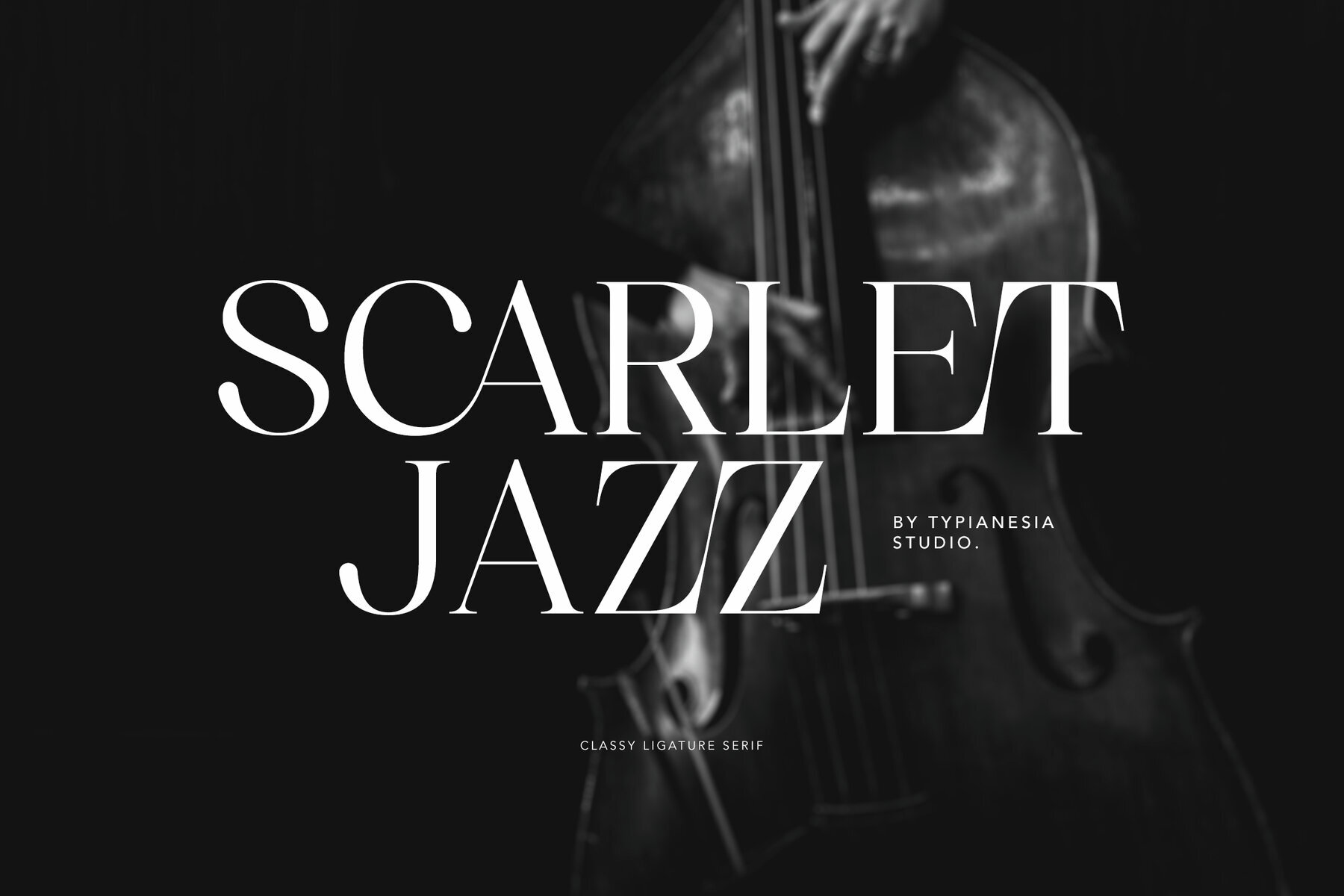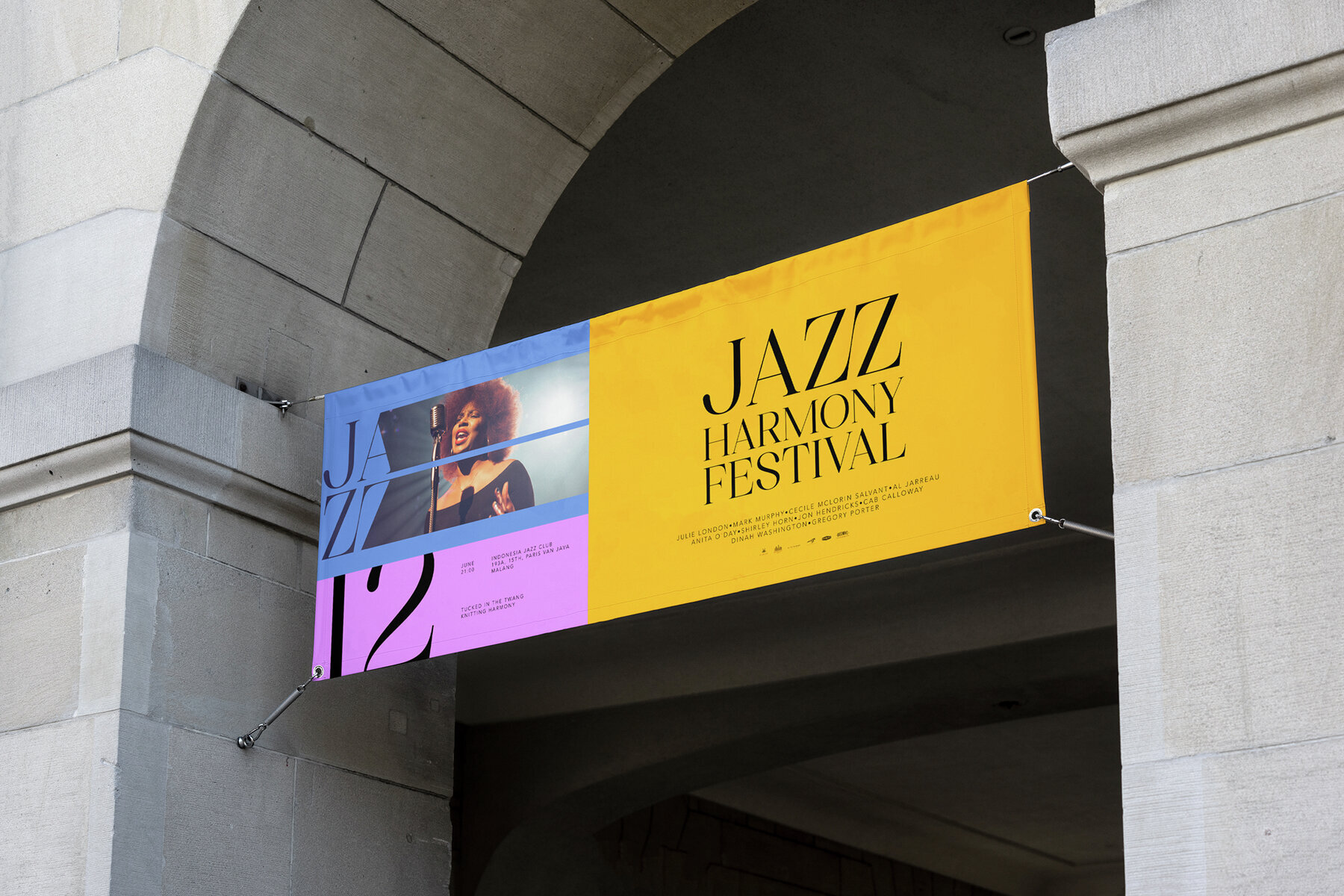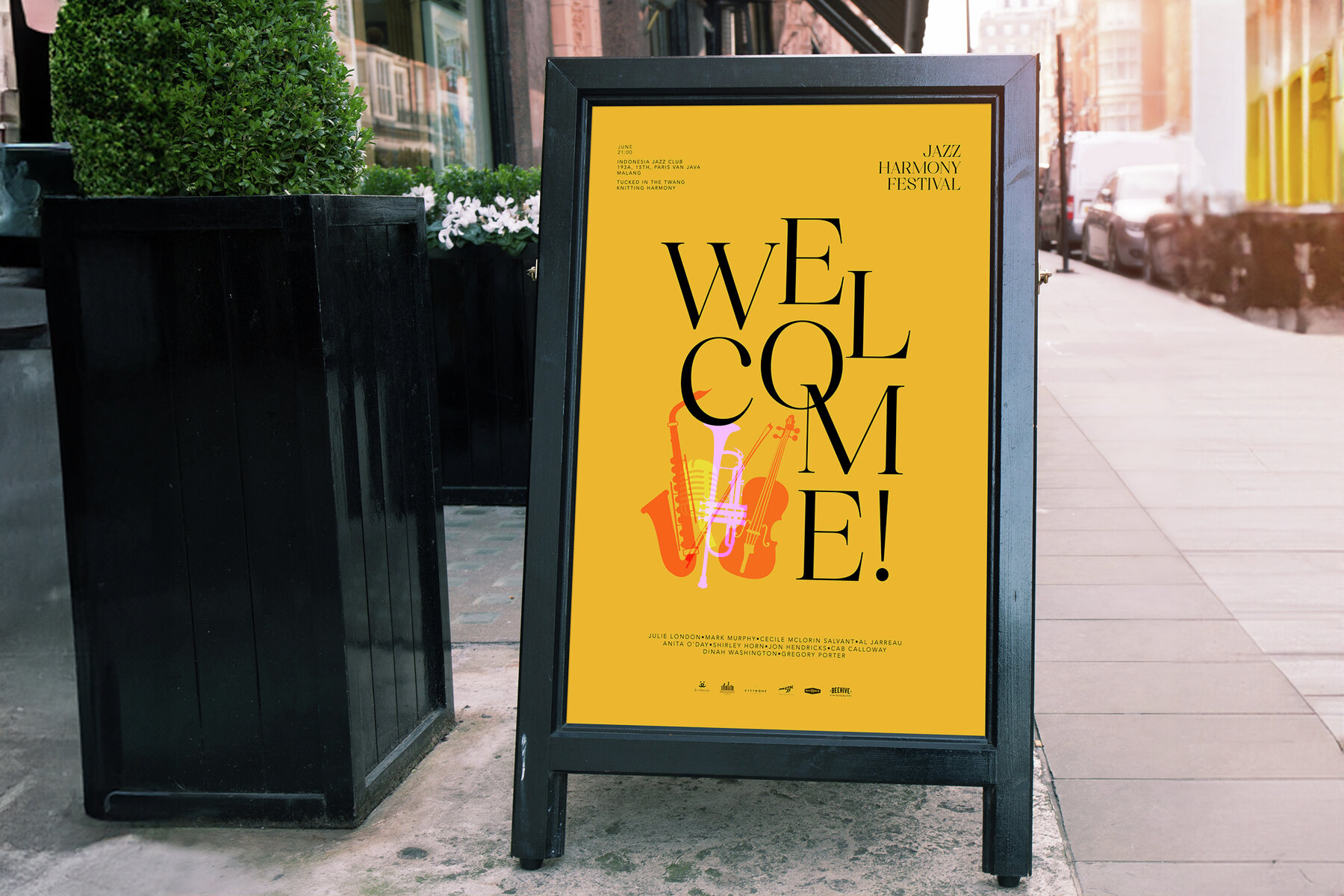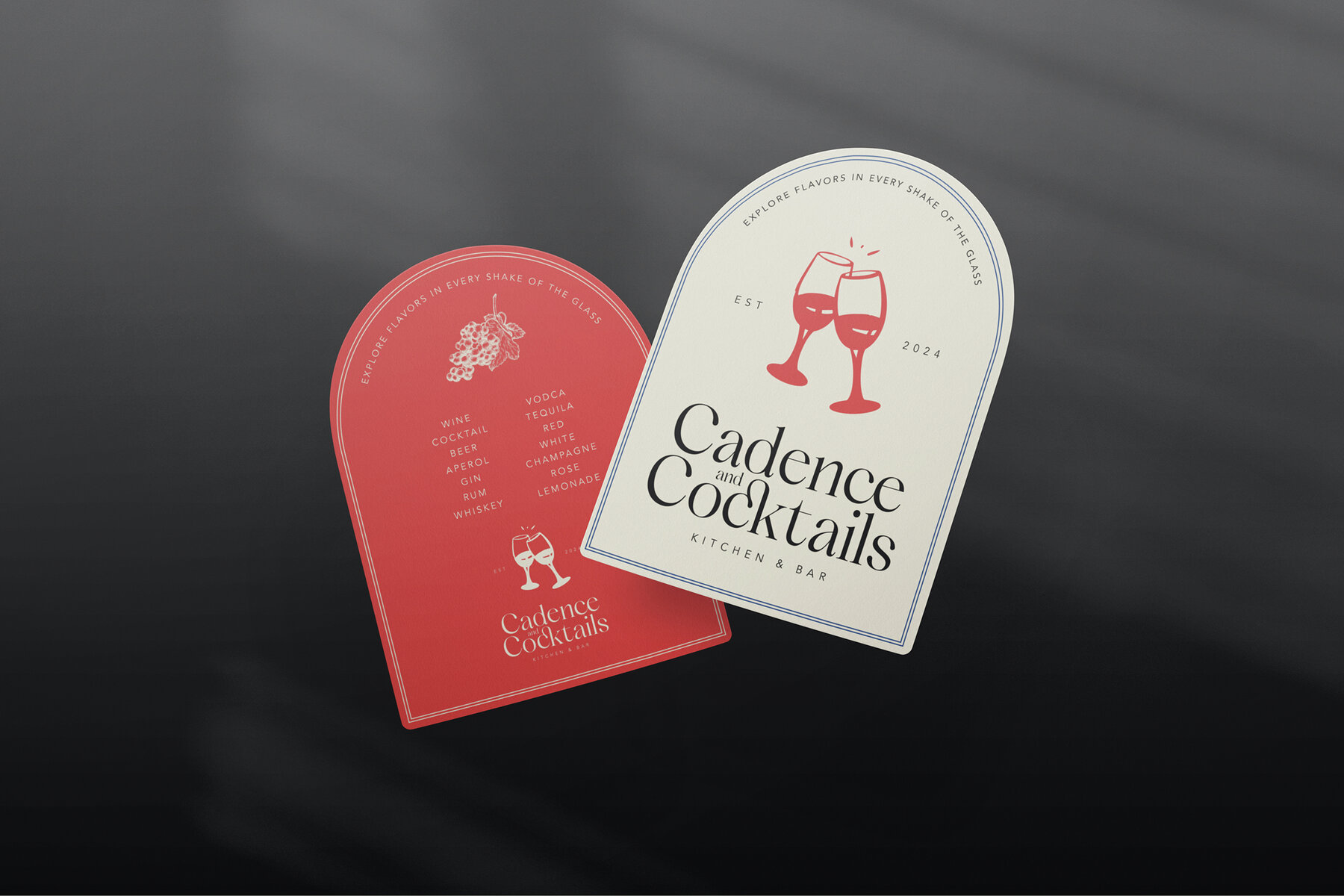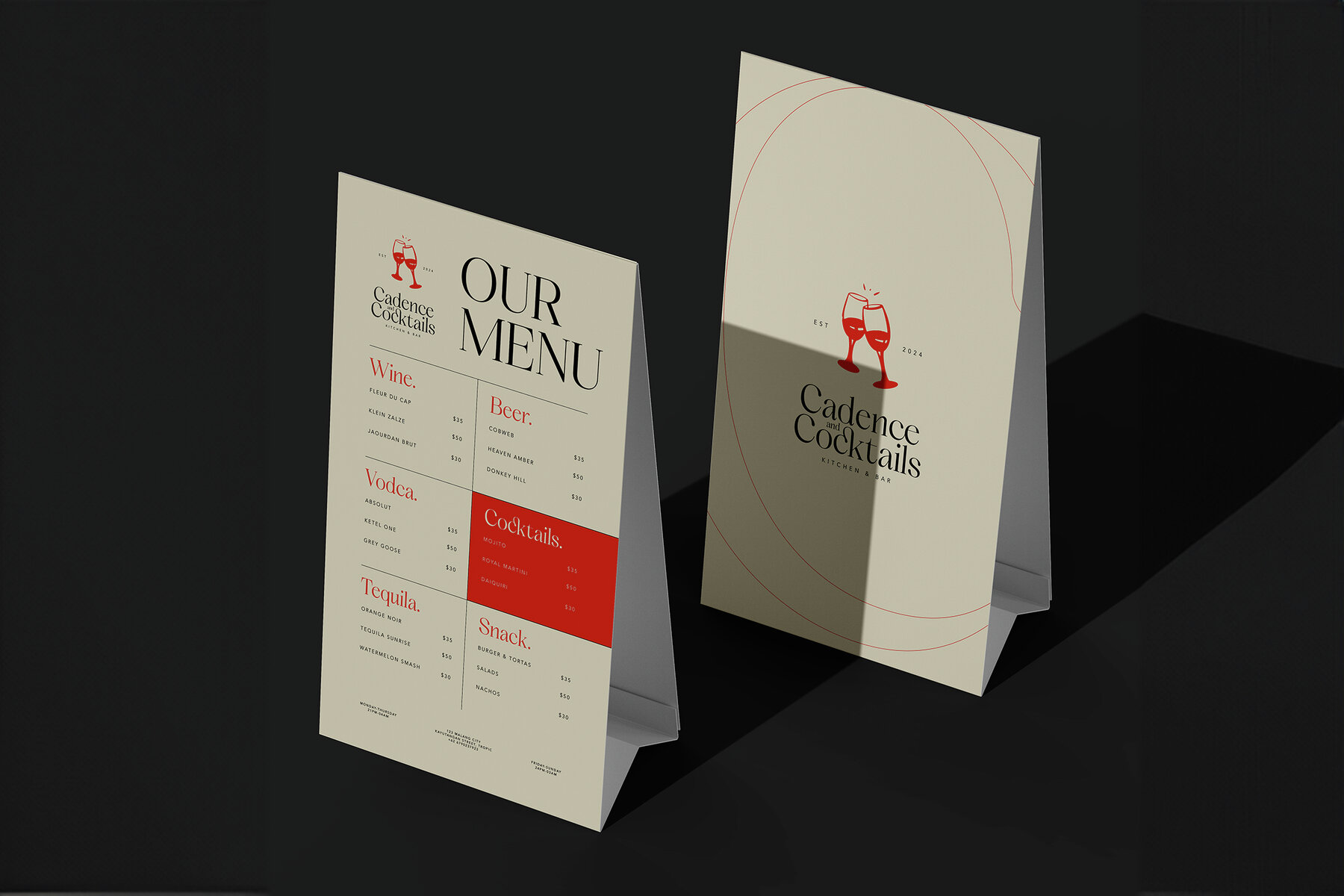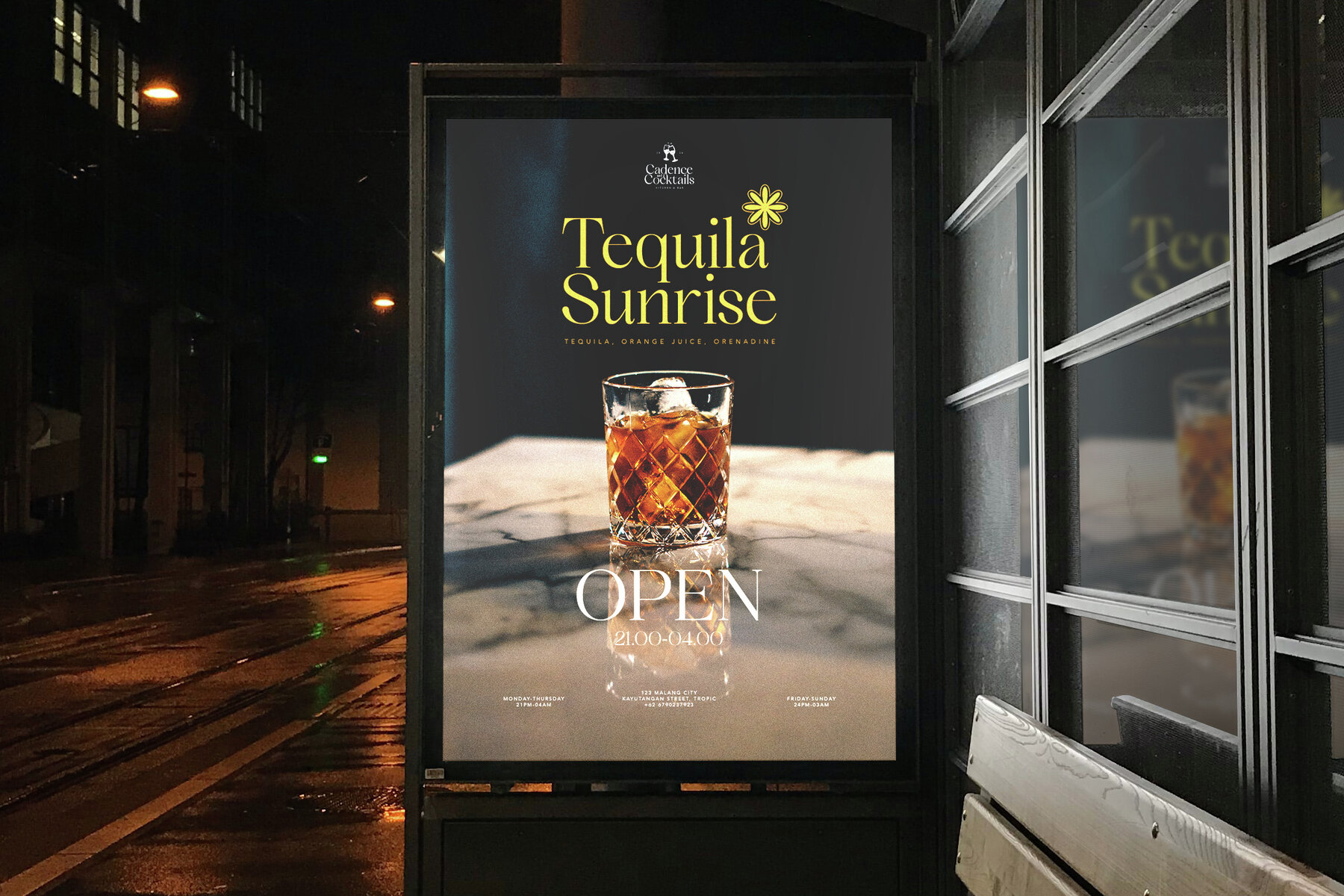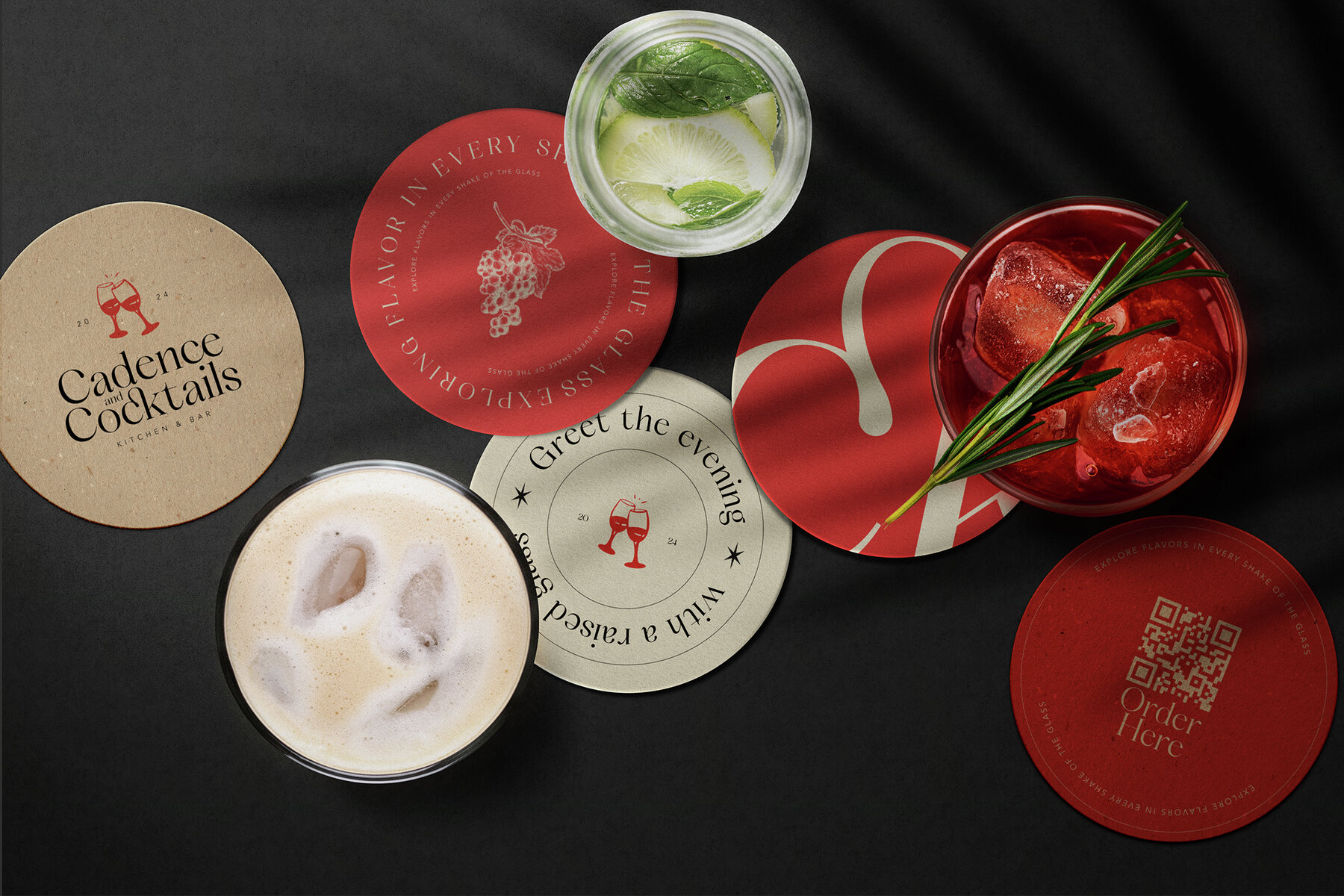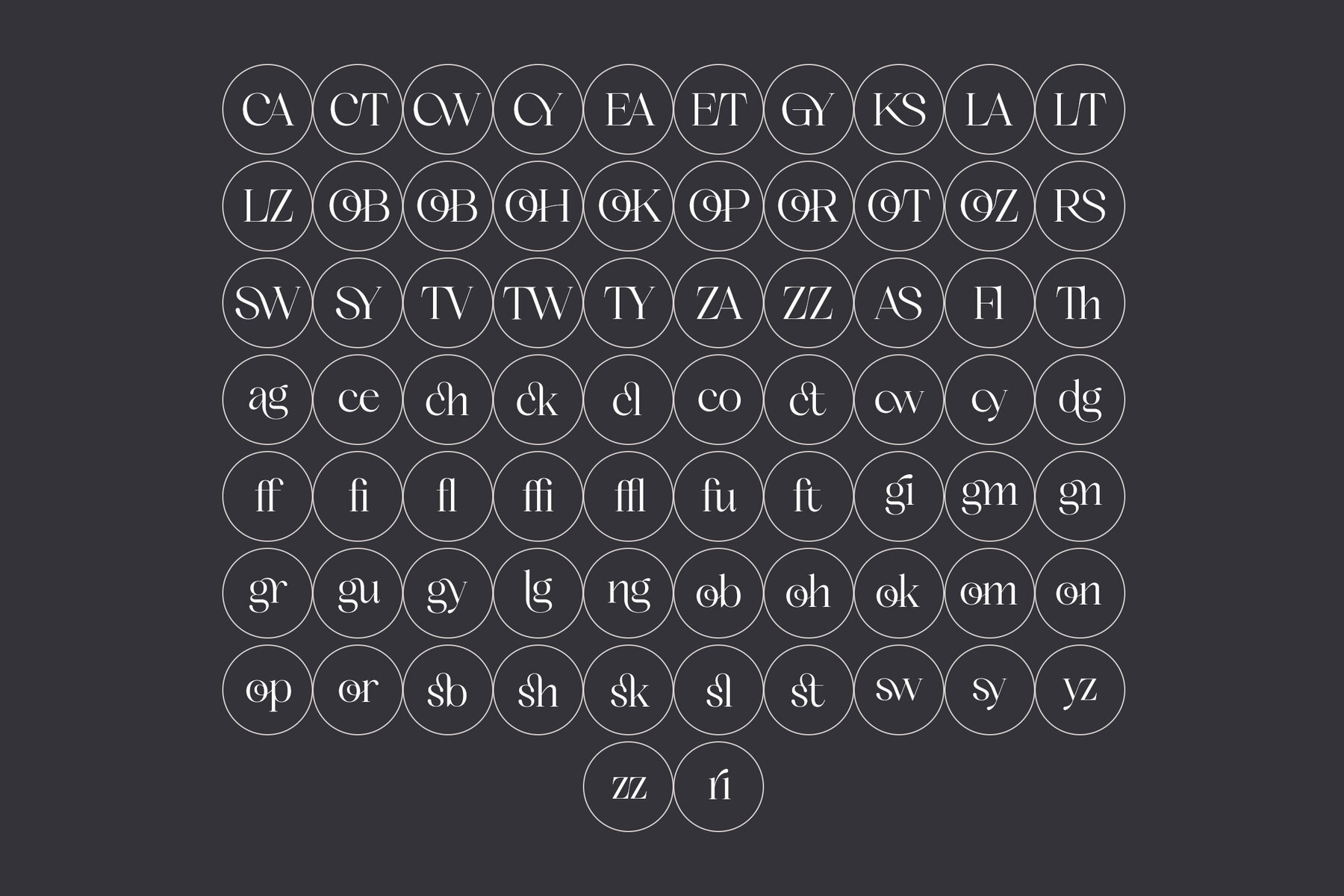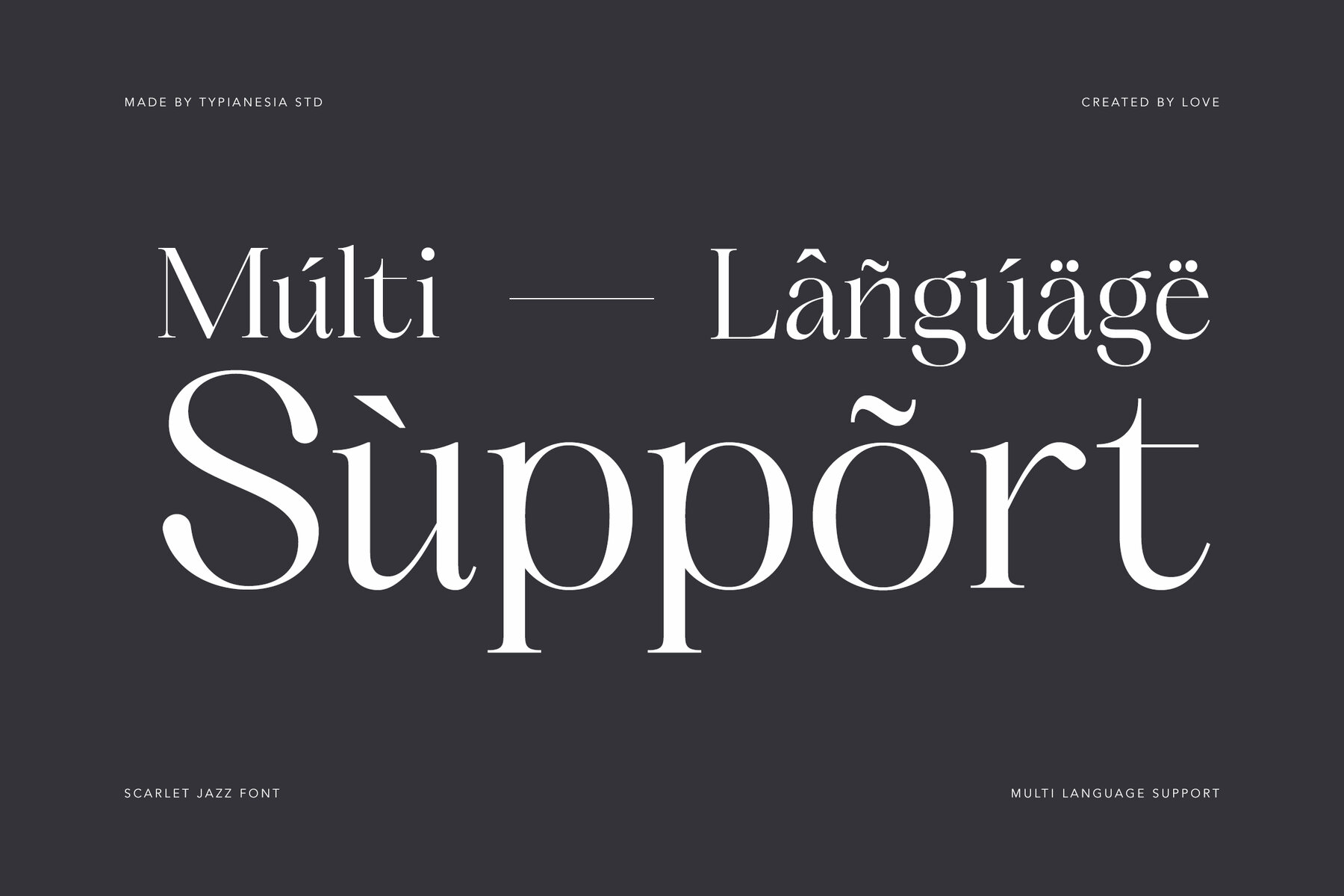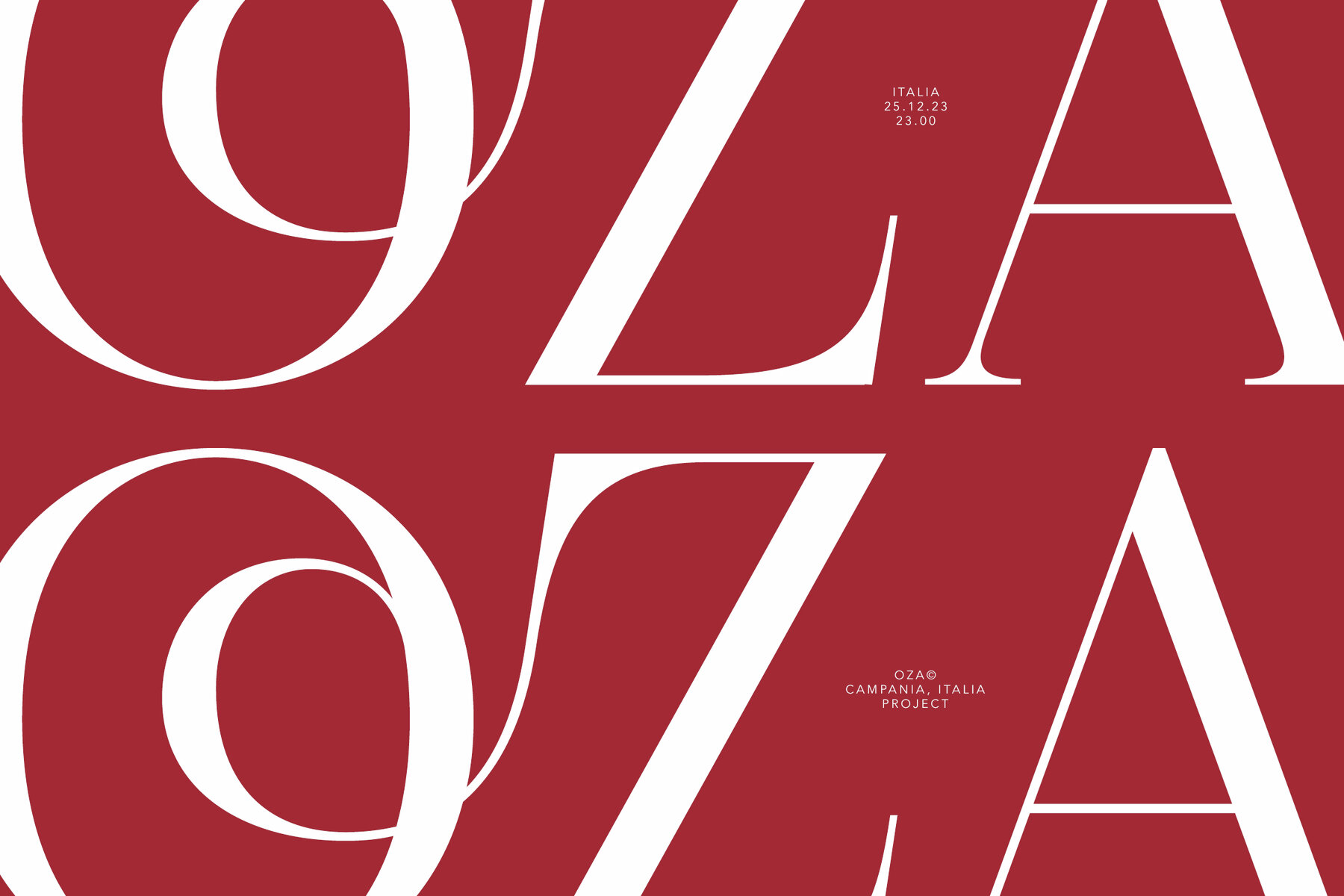
Scarlet Jazz Font
Scarlet Jazz Regular
Scarlet Jazz - Classy Ligature Serif - Elegant & Beauty Serif as a Symphony of Typography Scarlet Jazz embodies the essence of a classy ligature serif font, seamlessly blending sophistication with classic making the elegant font as a symphony of Typography, Scarlet Jazz radiates elegance and refinement, making it a perfect choice for premium applications and upscale settings. Ideal for high-end branding, luxury packaging, Fashion and Beauty, invitations, Fine Dining Menus, you can incorporate the font into menus for upscale restaurants or fine dining establishments to enhance the overall dining experience. And you can also apply font for Wine and Spirits Labels, and any project that demands a touch of sophistication. Scarlet Jazz elevates the visual appeal of your design, creating a lasting impression. The distinctive ligatures in Scarlet Jazz create a harmonious flow between characters, elevating the overall visual appeal. This font encompasses Uppercase and Lowercase letters, Punctuation marks, Numerals, and extensive Multilanguage Support, ensuring flexibility and compatibility for a diverse range of design applications